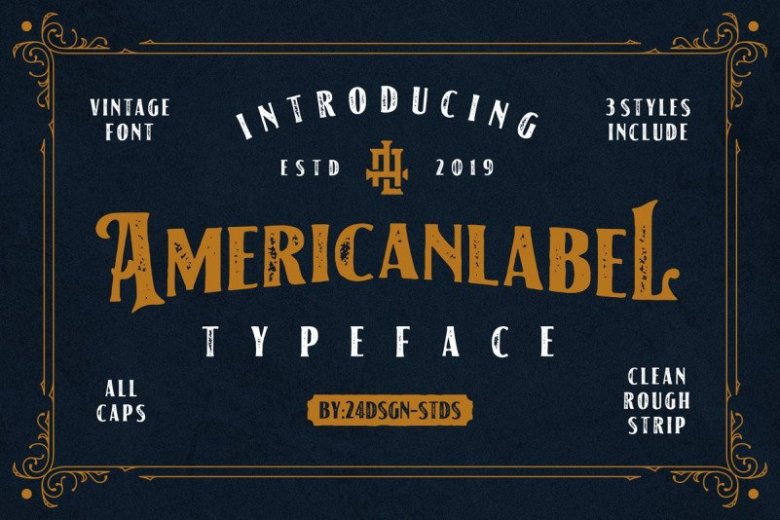
American Label Vintage Font
This is a vintage label display typeface. It looks elegant, old and has a royal feel to it. This typeface is suitable for any vintage related projects. Introducing American Font. American Label is typeface vintage font. Its masculine style makes it perfect for logos, typography, and product labels that require a classic and masculine touch. This font is available in 3 styles, namely, clean, rough and striped.
American Typeface is great for any kind of display purpose from logos, Tshirt, label, apparel, quote, handwritten quotes, product packaging, tittle header, poster, merchandise, social media, labels, branding & greeting cards.